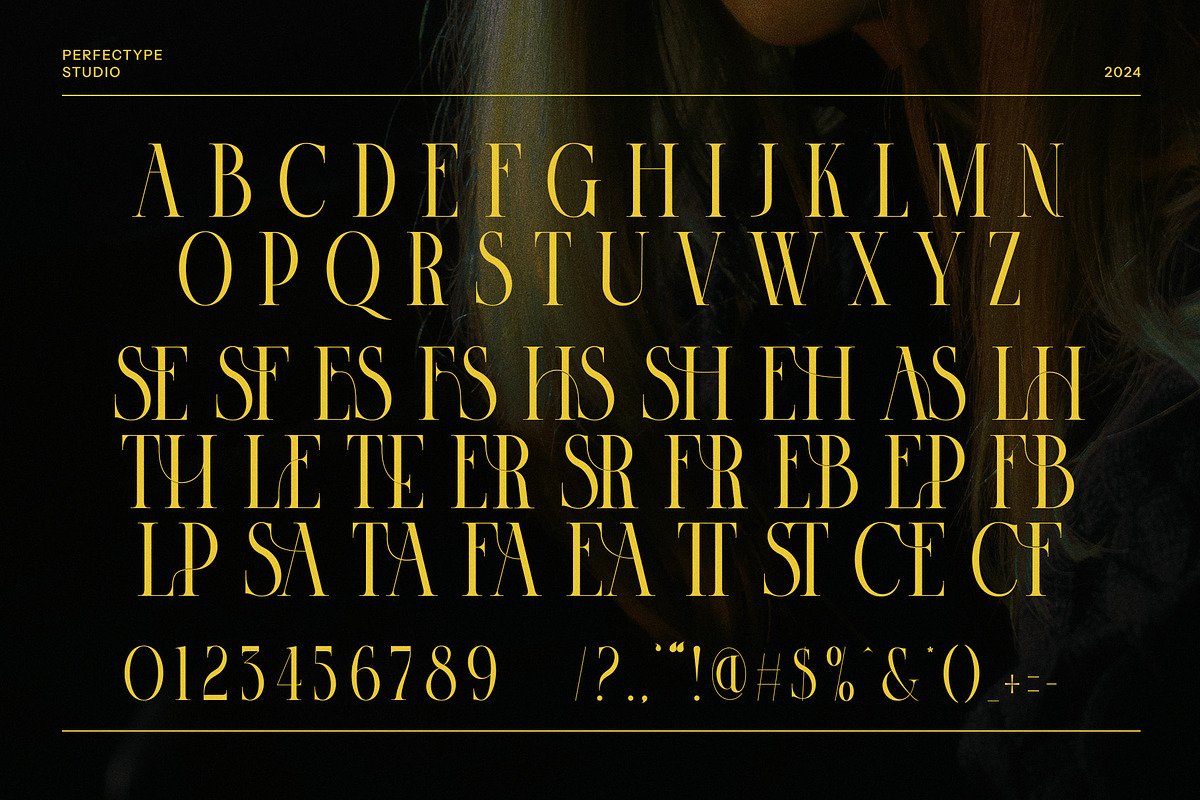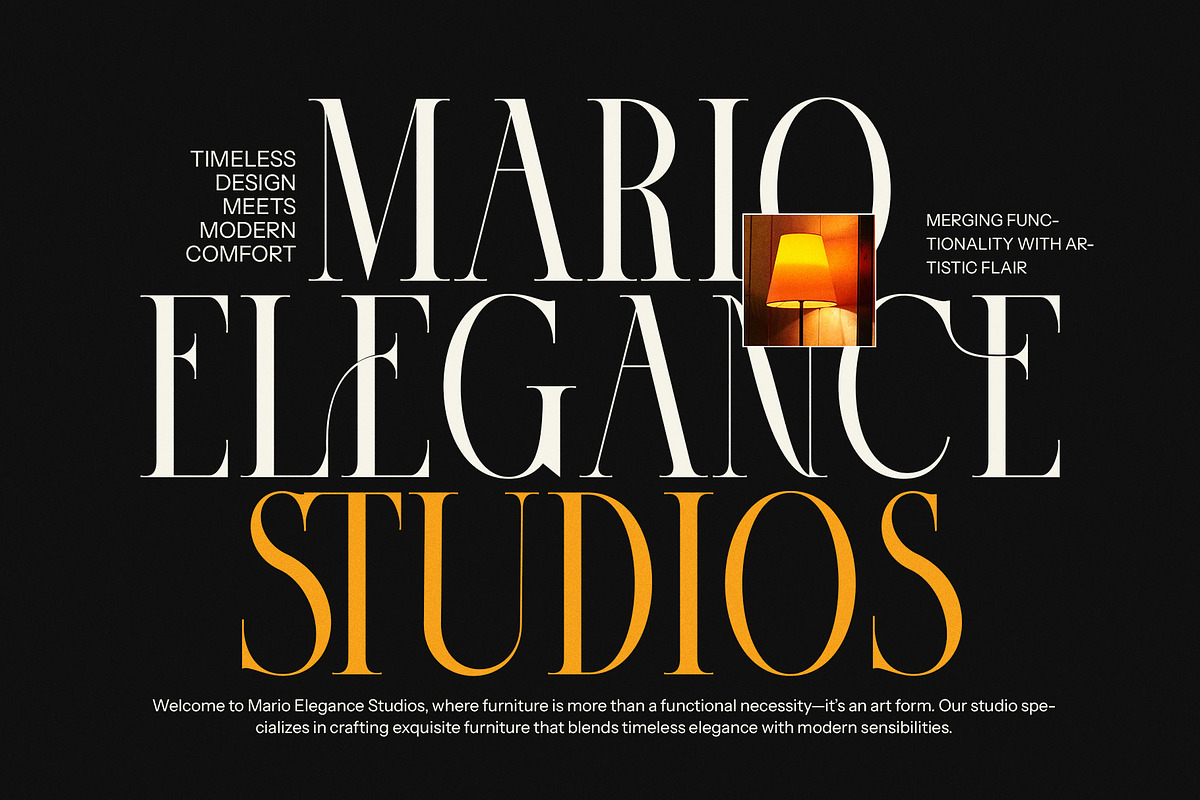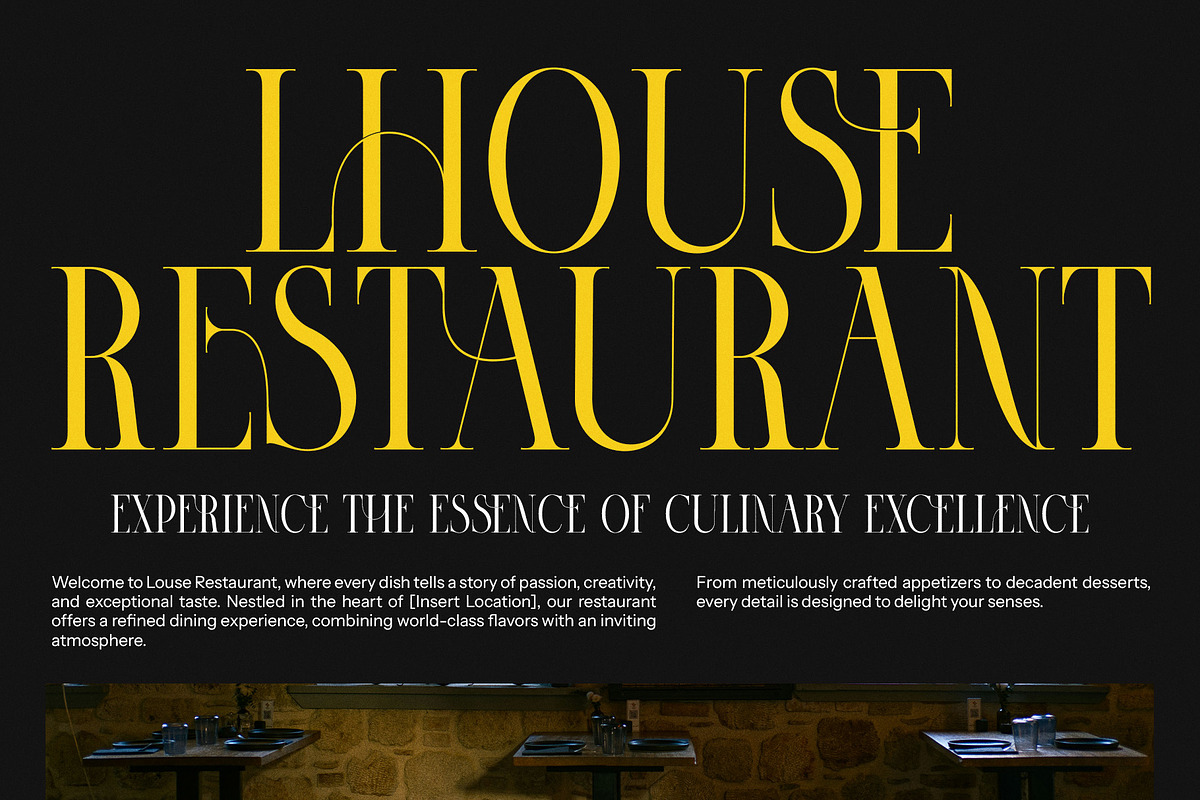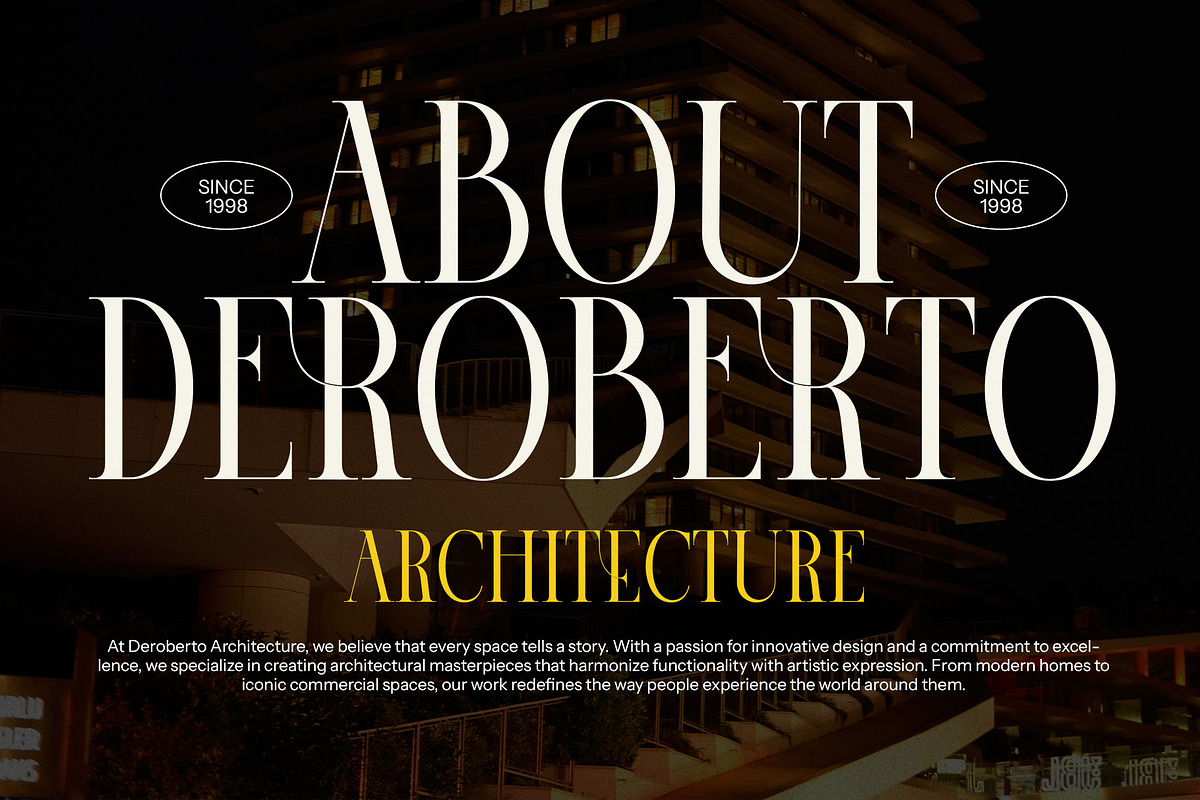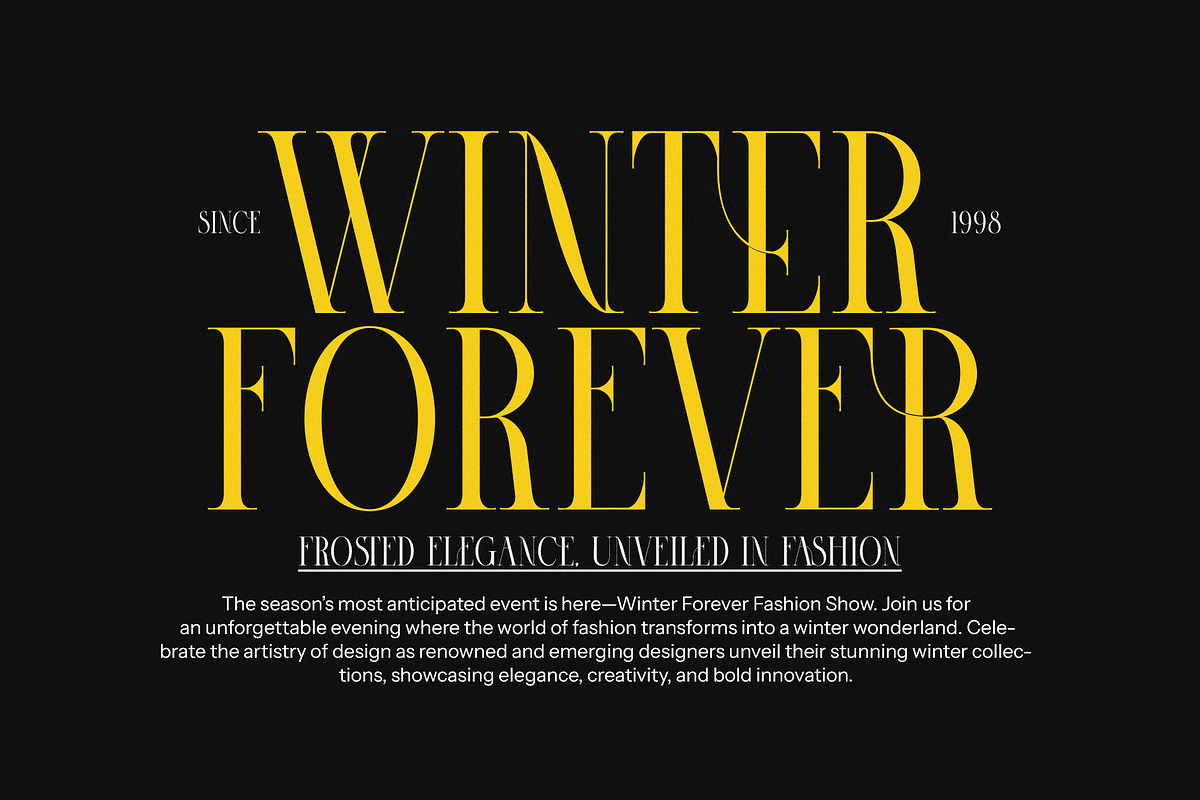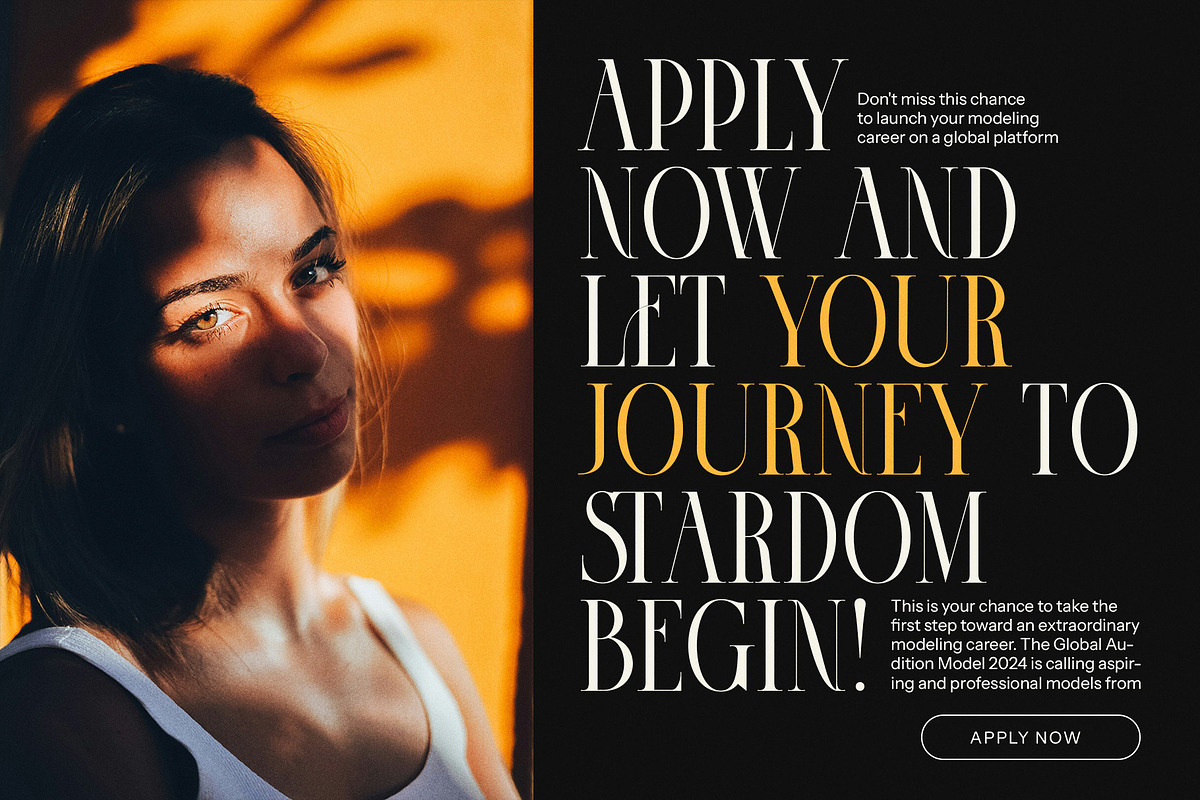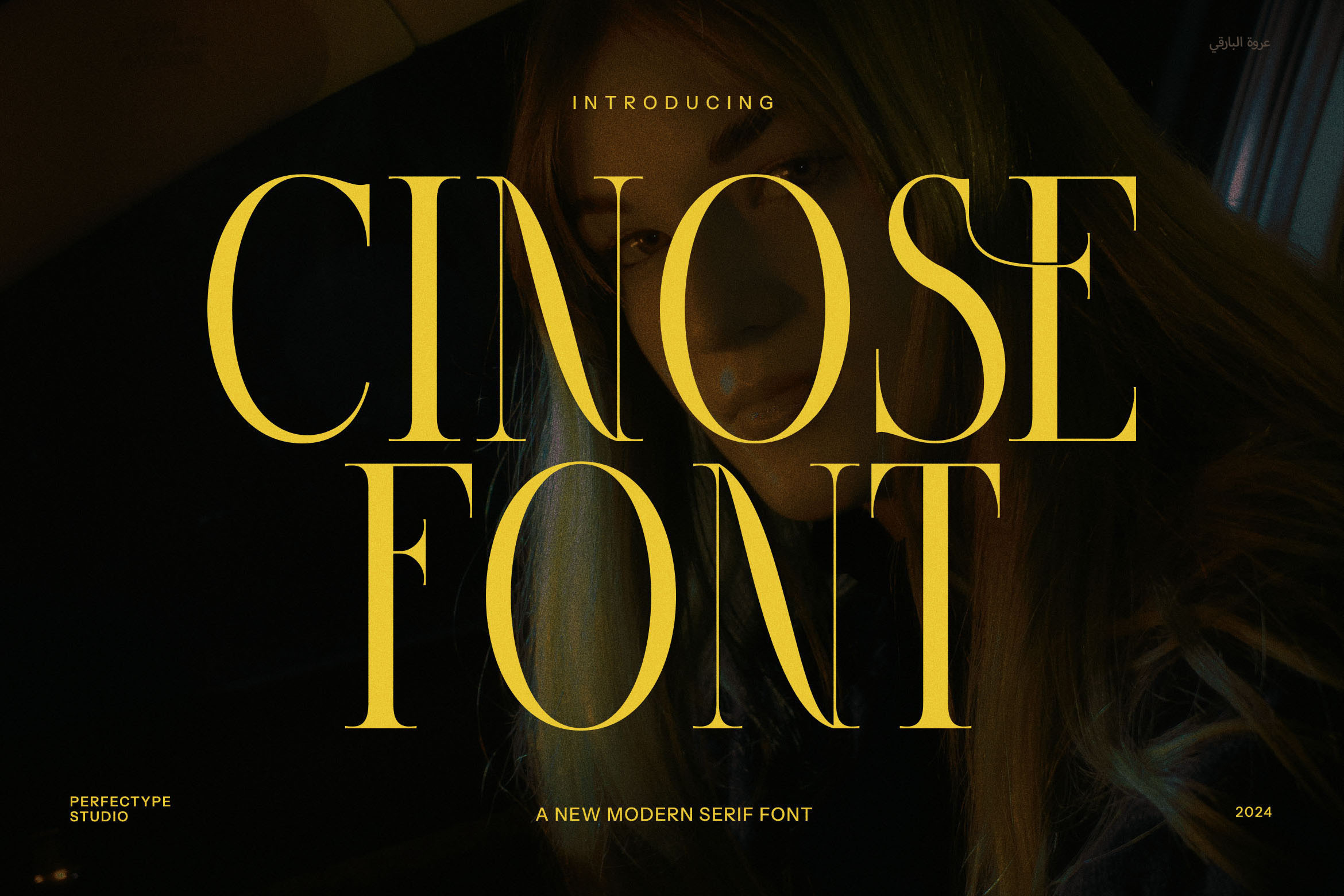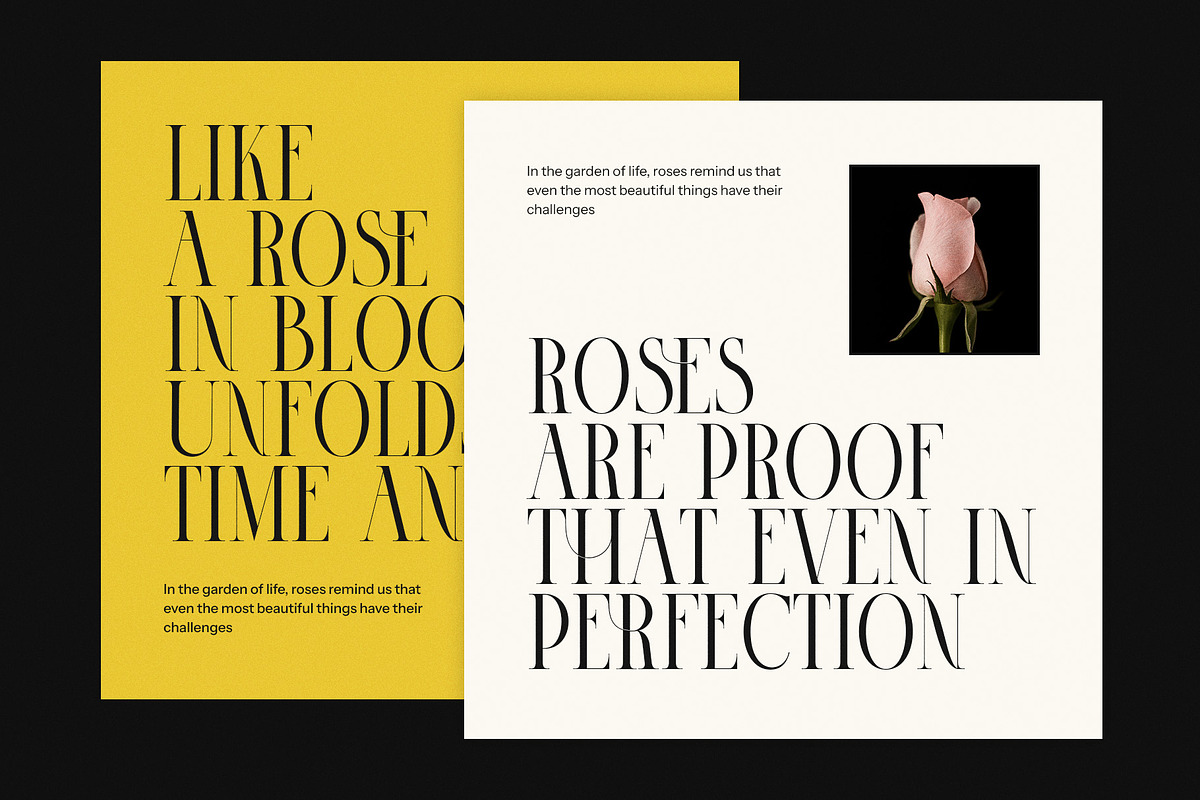
Cinose Elegant Serif Font
Cinose Elegant Serif Font is a captivating vintage-inspired serif typeface that effortlessly combines classic charm with modern sophistication. Its timeless design is characterized by elegant serifs and beautifully crafted letterforms, making it a perfect choice for projects that demand a touch of refinement and nostalgia. Cinose brings an air of old-world elegance, while still feeling fresh and contemporary.
This font excels in creating a sense of luxury and tradition, making it ideal for logos, branding, and high-end products. Whether you're designing a boutique logo, a chic restaurant menu, or a premium product label, Cinose Elegant Serif will elevate your brand with its distinctive style. Its versatile design works equally well in digital and print applications, from websites and magazines to packaging and advertisements.
Cinose’s balanced blend of vintage flair and modern clarity makes it perfect for a wide range of industries, including fashion, food, lifestyle, and hospitality. It adds an authentic, sophisticated touch to editorial layouts, brochures, and promotional materials. The font’s fine details, coupled with its sturdy structure, make it stand out in both large headlines and smaller body text, ensuring readability and visual impact.
Whether you're working on a vintage-inspired design or simply want to infuse your project with a touch of elegance, Cinose Elegant Serif Font offers the ideal solution. With its unique aesthetic, it’s guaranteed to make a lasting impression across a variety of creative endeavors.